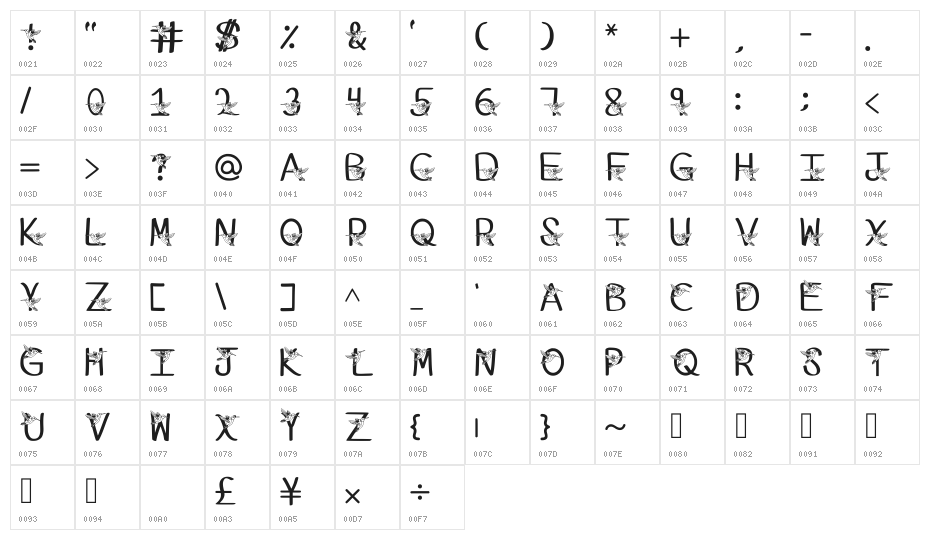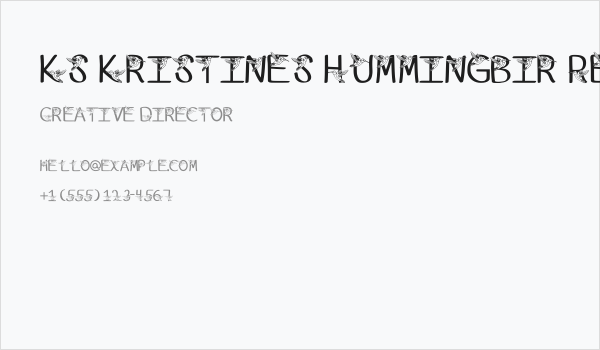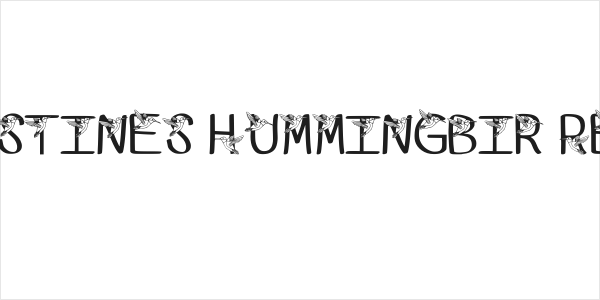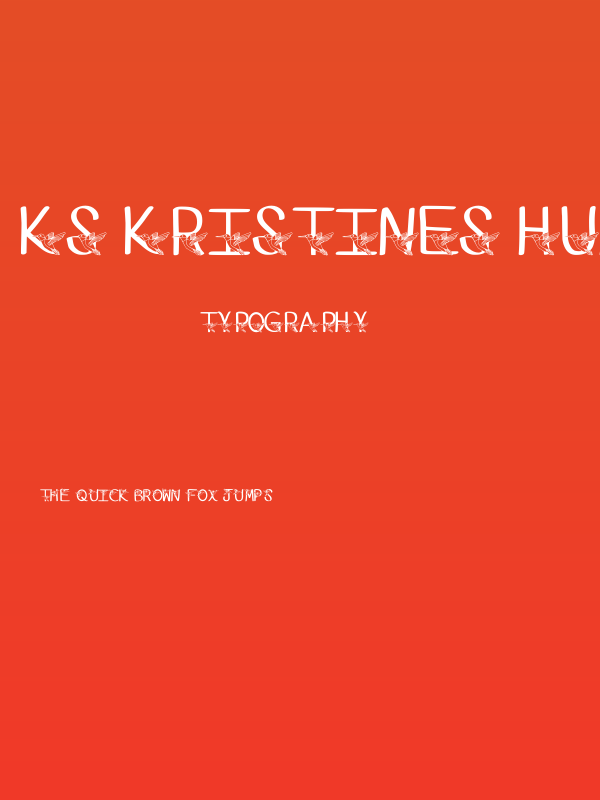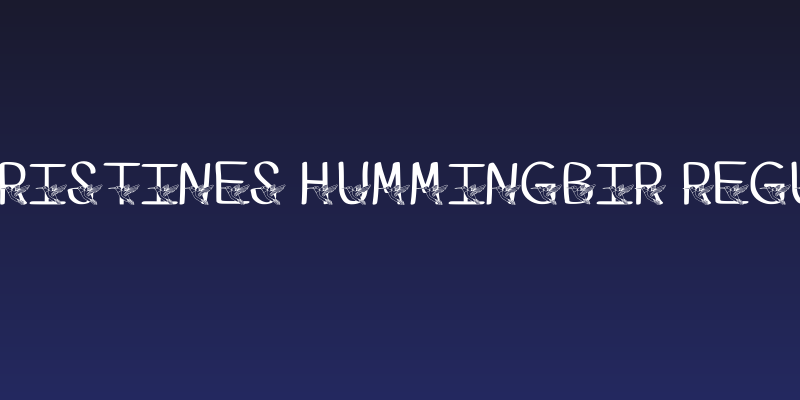
Ks Kristines Hummingbir Regular Font
This font features a unique and whimsical design, incorporating hummingbird illustrations seamlessly into the structure of each character. The letters are bold and slightly condensed, with a playful yet elegant style that captures attention. The hummingbirds are integrated in a way that adds movement and life to the text, making it ideal for creative and artistic projects. The font maintains readability while offering a decorative flair, making it suitable for headlines, posters, and branding that seeks to convey a sense of nature and creativity.
Proposed ProjectsIdeal for nature-themed branding, creative posters, artistic invitations, and decorative headlines.